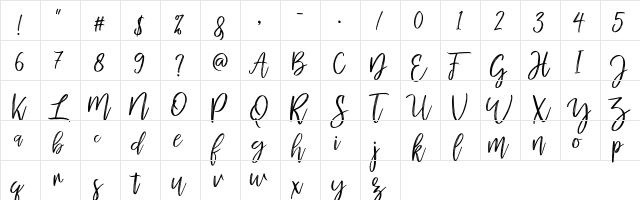
mellony dry brush Regular
| Foundry | Alit Design |
| Designer | Alit Suarnegara |
Design Context for mellony dry brush Typeface
mellony dry brush brings a calligraphic fluidity to the page — its connecting strokes and expressive curves give it an unmistakably human quality.
Font Pairing: Combine mellony dry brush with a simple geometric sans for maximum contrast — the tension between flowing curves and clean structure is a classic typographic pairing.
Pro Tip: Pair mellony dry brush with a clean sans-serif for supporting text. The contrast between fluid script and geometric structure creates an elegant typographic hierarchy.